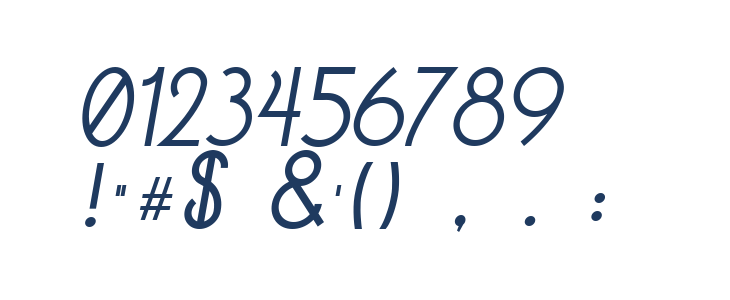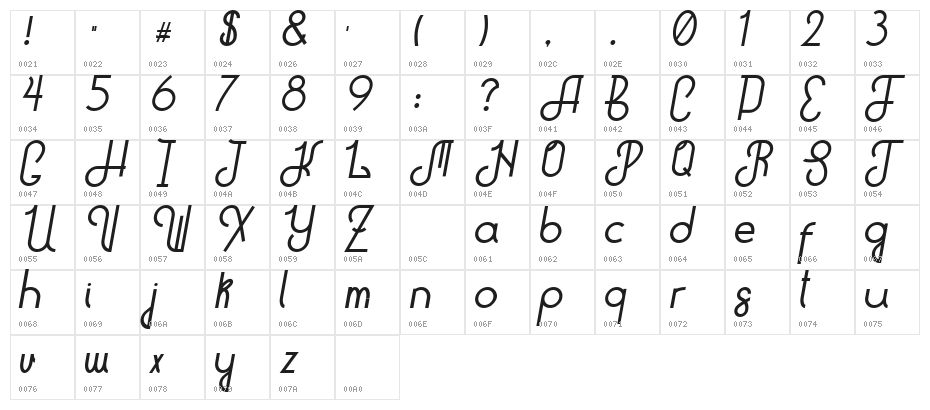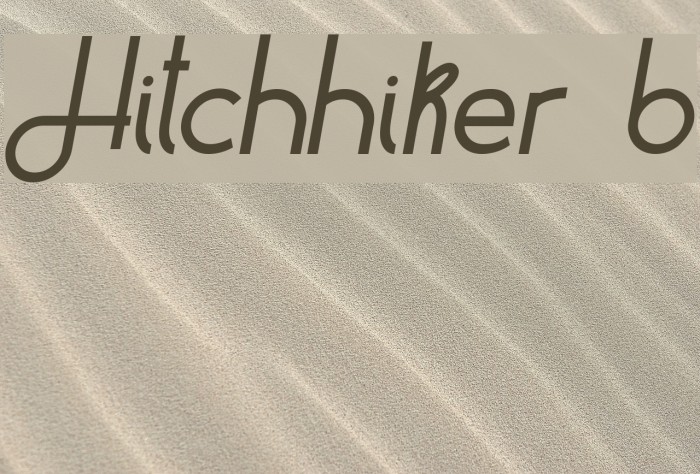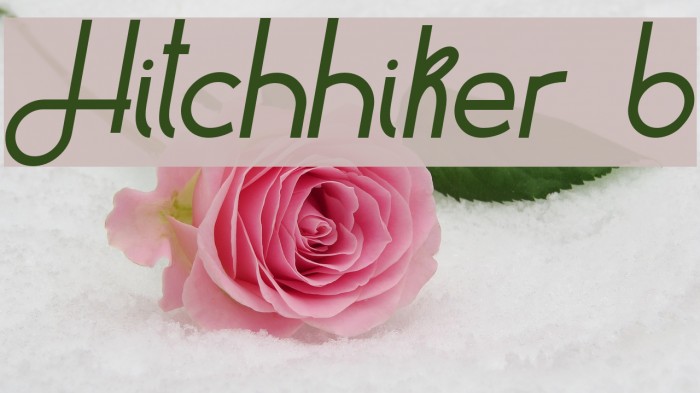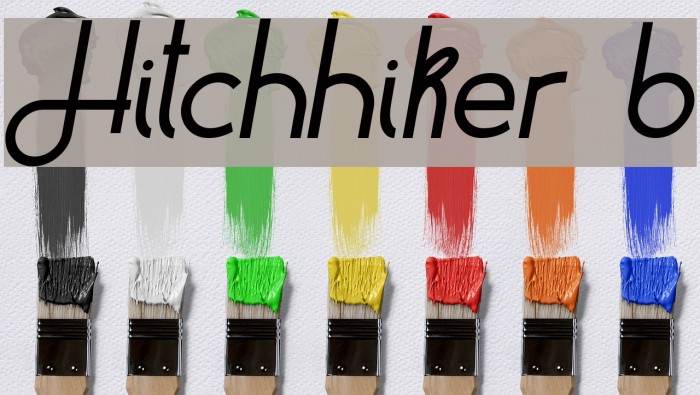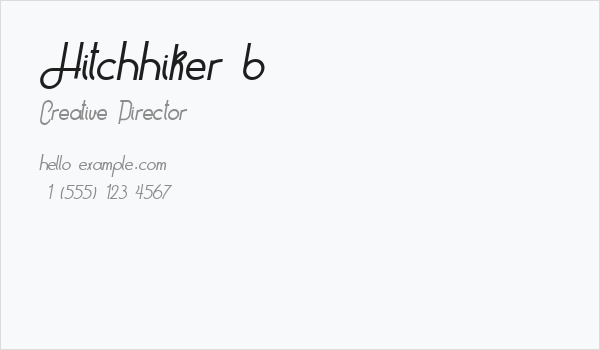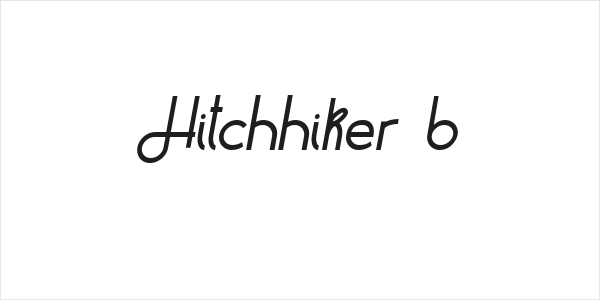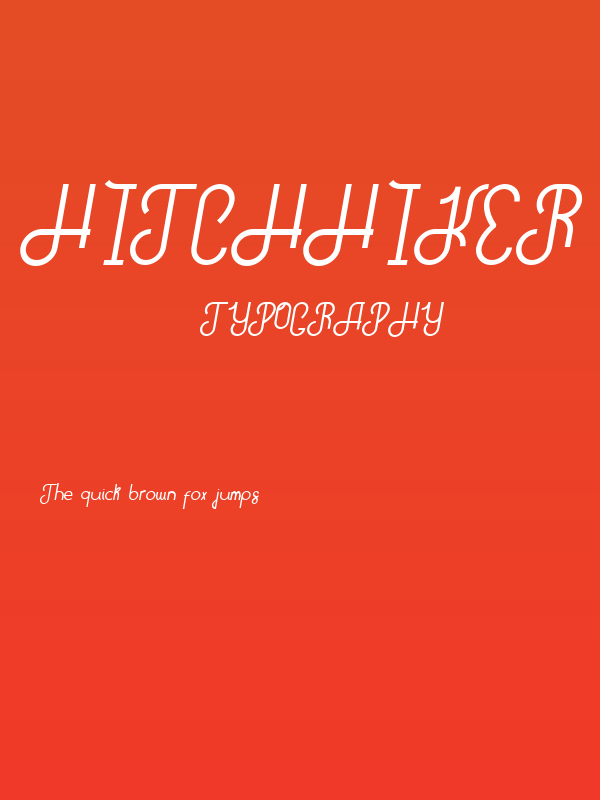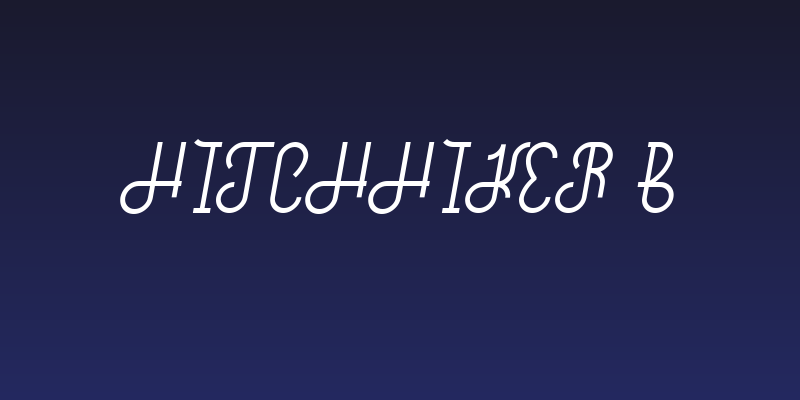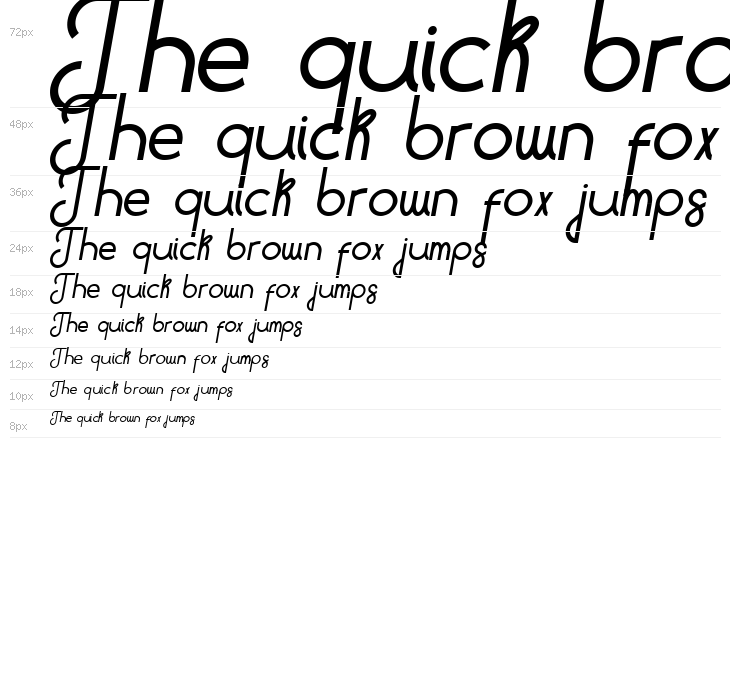
Hitchhiker b Font
Hitchhiker b Description
This font features a unique blend of modern and retro elements, characterized by its flowing, cursive-like uppercase letters and bold, rounded lowercase characters. The uppercase letters have a distinct, playful flair with elongated strokes and loops, giving them a whimsical appearance. In contrast, the lowercase letters are more straightforward, with a bold and rounded design that ensures readability. The numerals and special characters maintain this balance of playfulness and clarity, making the font versatile for various uses. The overall design is both eye-catching and functional, suitable for creative projects that require a touch of personality.
| Overall Style | Modern, Retro |
| Proposed Projects | Ideal for branding, posters, invitations, and creative projects that need a unique and playful touch. |